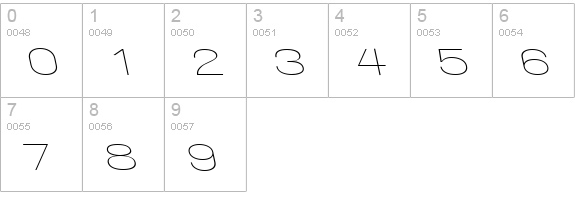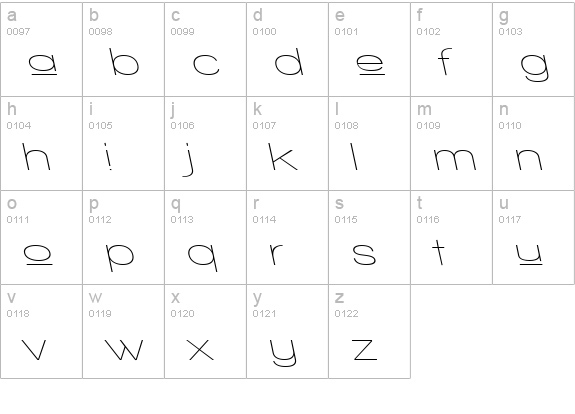
Walkway Upper Expand RevOb font is a unique and eye-catching typeface that stands out with its bold and modern design. The expanded upper case letters make a strong visual statement, perfect for headlines, posters, and other display purposes. The font exudes a sense of energy and creativity, making it ideal for projects that require a dynamic and impactful look. The best part is that Walkway Upper Expand RevOb font is completely free to download at FontsMarket.com. You can easily access this stylish and versatile font for your design projects without any cost. Whether you're a professional designer or a hobbyist looking to add a touch of flair to your creations, this font is a fantastic choice that won't break the bank. Download it today and elevate your designs with the striking aesthetics of Walkway Upper Expand RevOb font.